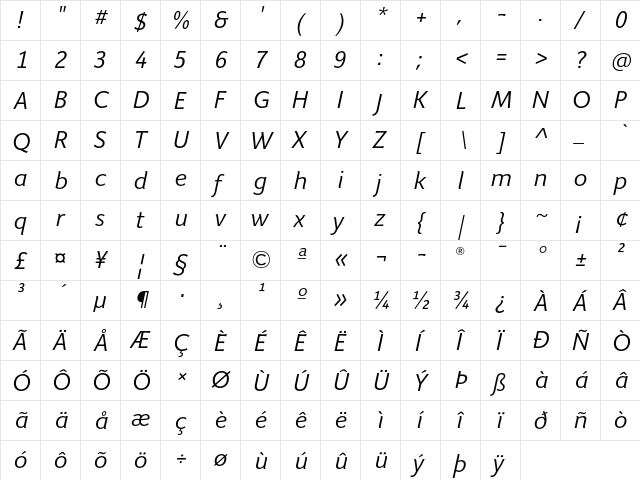
Giacomo Regular Italic
| Designer | James Montalbano |
Design Context for Giacomo Typeface
Giacomo offers clean, dependable letterforms without strong stylistic allegiance, making it a practical choice for designers who need flexibility. The dynamic lean of this cut emphasises speed and emphasis in any layout.
Pro Tip: Try Giacomo for annotation and caption copy alongside an upright companion — the contrast in angle creates a dynamic but ordered typographic system.